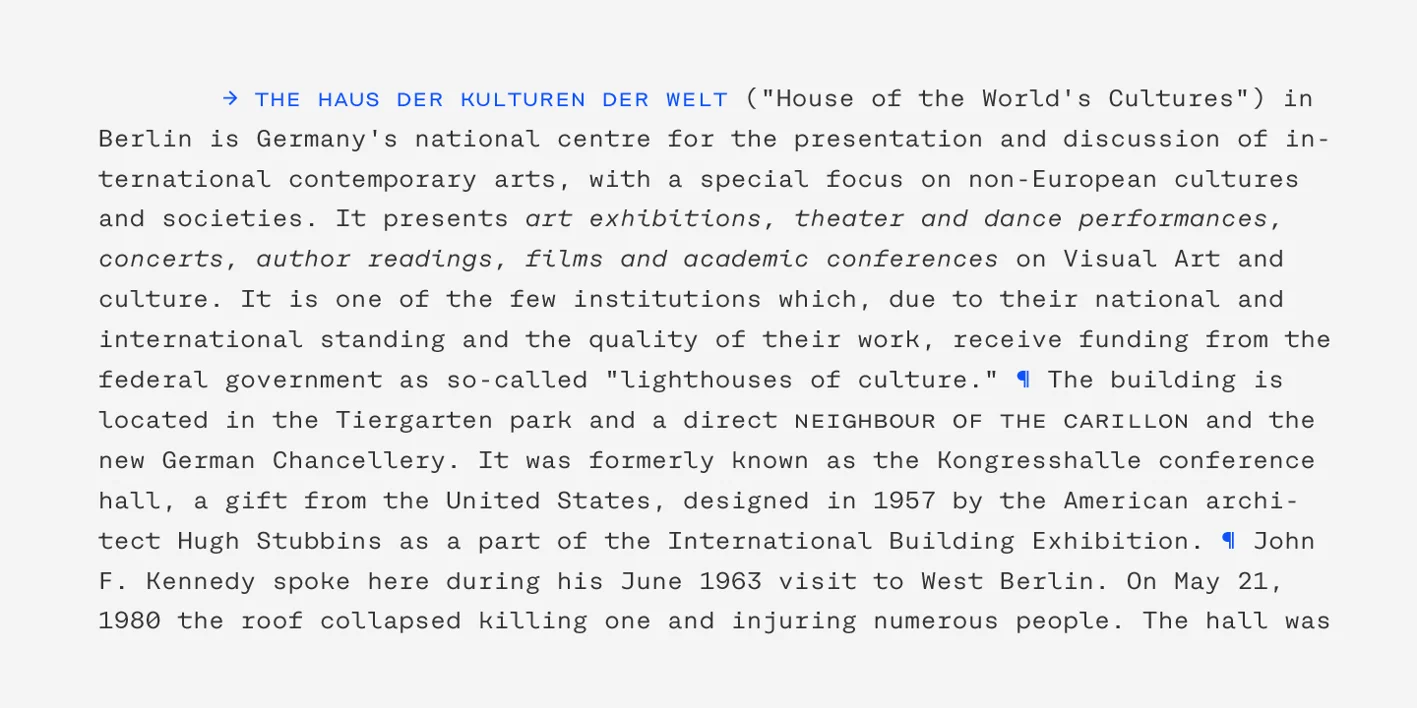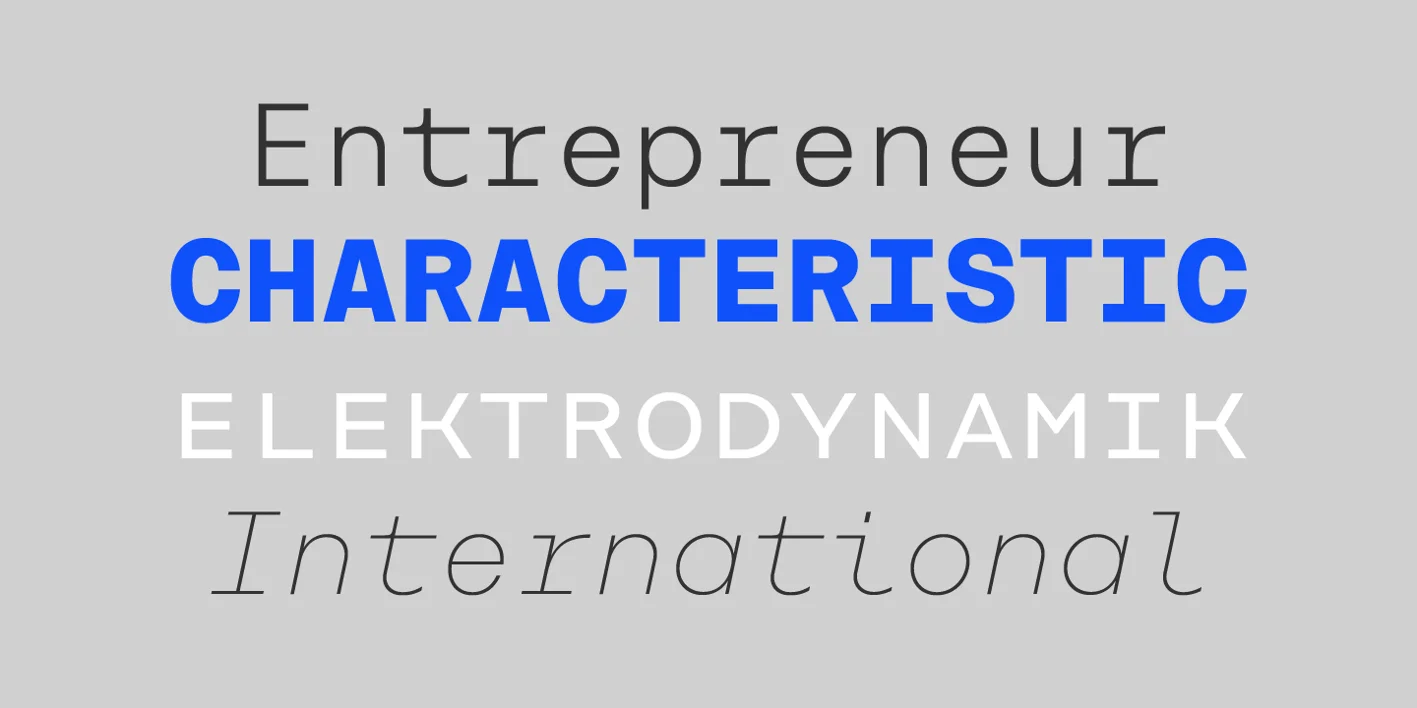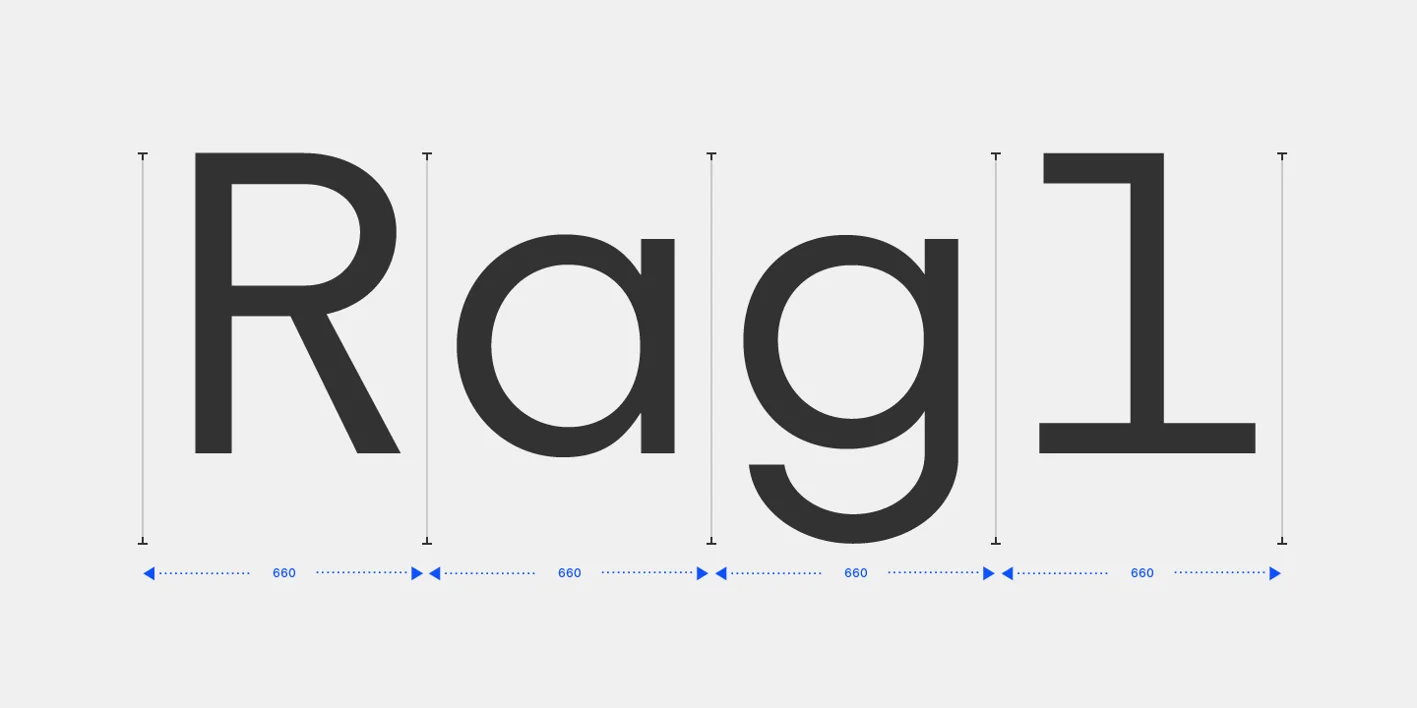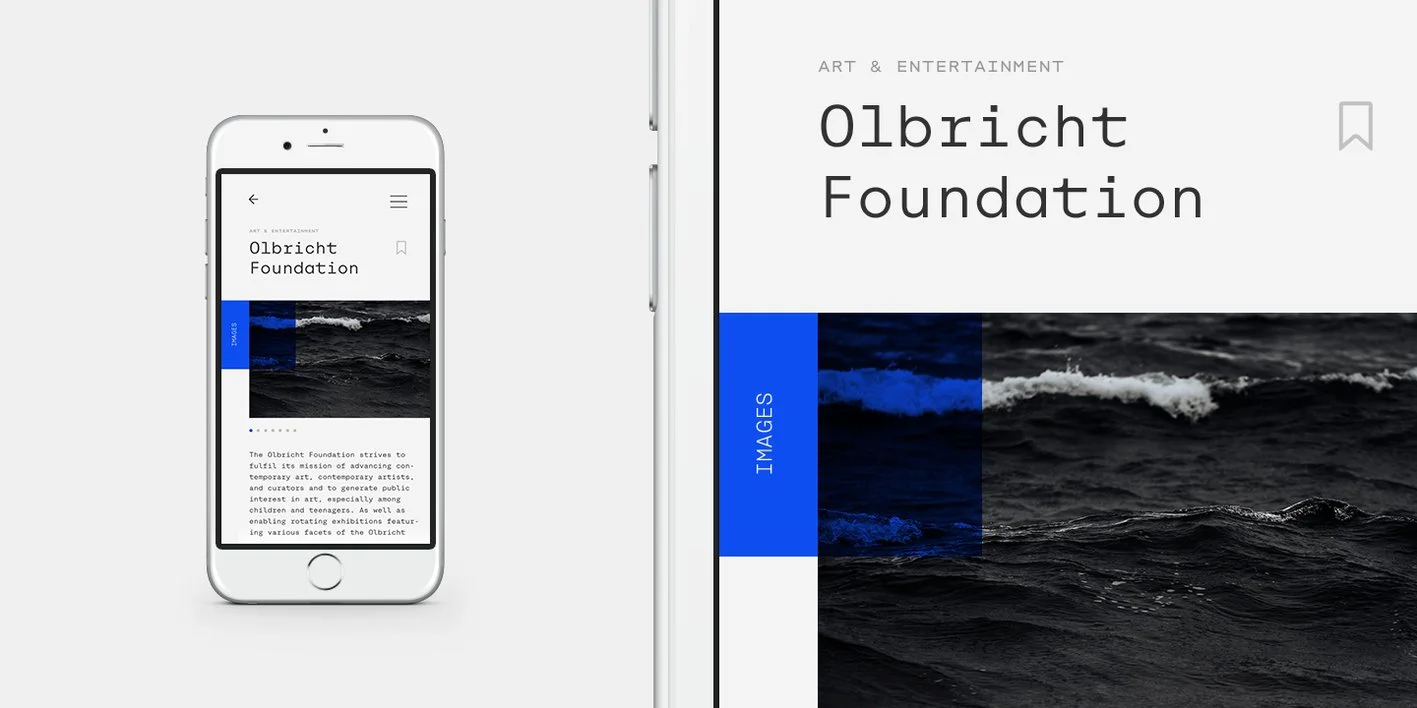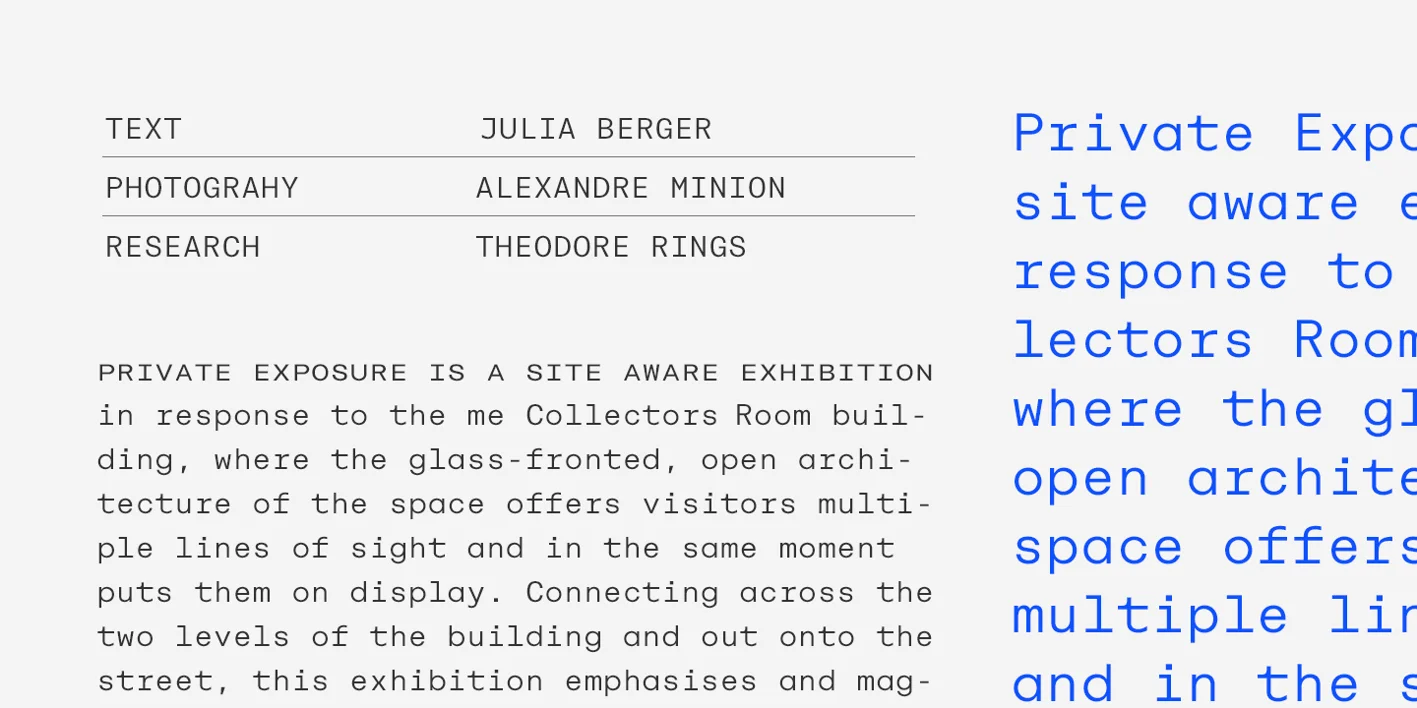
Rational TW Font
Rational TW offers a fresh typographic approach that balances visual appeal with exceptional legibility.
The design strikes a careful balance between geometric structure and humanist warmth, giving it broad appeal across design disciplines.
Its proportions suit a wide range of uses: website headers, printed flyers, restaurant menus, annual reports, and product packaging.